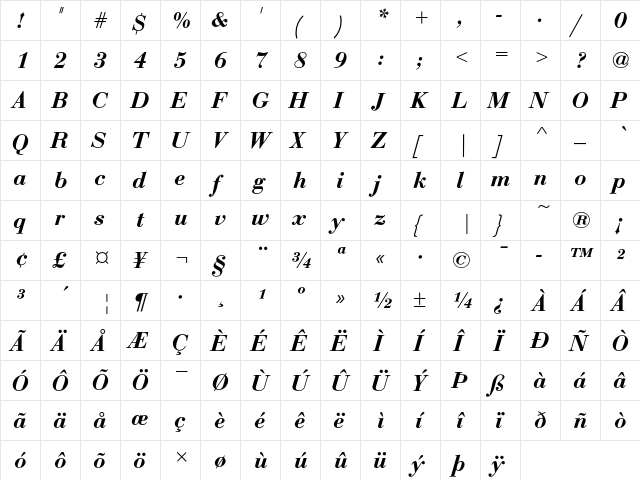
Bauer Bodoni T Demi Bold Italic Font Preview
Design Context for Bauer Bodoni T Typeface
Bauer Bodoni T offers clean, dependable letterforms without strong stylistic allegiance, making it a practical choice for designers who need flexibility. Its italic angle brings a sense of urgency and motion to the letterforms. The heavy weight commands attention and anchors typographic hierarchies.
Pro Tip: Try Bauer Bodoni T for annotation and caption copy alongside an upright companion — the contrast in angle creates a dynamic but ordered typographic system.